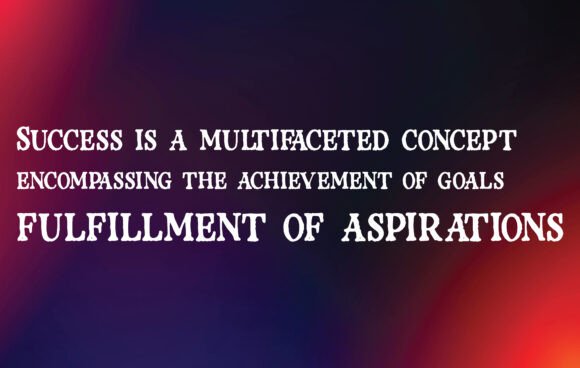
Europa Font: Elevate Your Creative Ideas with this Stunning Typeface
The world of typography is vast and diverse, with numerous fonts available to cater to various design needs. Among these, the Europa font stands out for its elegance, versatility, and captivating charm. In this article, we will delve into the features, benefits, and applications of the Europa font, exploring how it can elevate your creative ideas to new heights.
What is Europa Font?
Europa is a lovely and beautiful font, meticulously crafted to inspire creativity and bring a touch of sophistication to any design project. Its unique style and characteristics make it an excellent choice for designers, artists, and anyone looking to create visually stunning content.
Key Features of Europa Font
- Unique Style: Europa font boasts a distinctive style that sets it apart from other typefaces. Its elegant lines, precise curves, and balanced proportions make it a joy to work with.
- Versatility: This font is incredibly versatile, suitable for a wide range of design applications, from logos and branding to quotes and creative writing.
- Legibility: Europa font is designed with legibility in mind, ensuring that your text remains clear and easy to read, even at smaller font sizes.
- Customizability: The font’s flexibility allows for effortless customization, enabling you to tailor it to your specific design needs.
Applications of Europa Font
Europa font is an excellent choice for various design projects, including:
- Logo Design: Create eye-catching logos that leave a lasting impression with Europa font’s unique style and elegance.
- Branding: Establish a strong brand identity with this font, perfect for crafting memorable brand names, taglines, and marketing materials.
- Quotes and Typography: Add a touch of sophistication to your quotes, posters, and typographic designs with Europa font’s beautiful and legible style.
- Digital and Print Media: Use Europa font in digital and print media, such as brochures, flyers, magazines, and website content, to create a cohesive and professional visual identity.
Benefits of Using Europa Font
By incorporating Europa font into your design projects, you can:
- Enhance Visual Appeal: Elevate your designs with Europa font’s captivating style, making them more engaging and attention-grabbing.
- Establish Brand Identity: Create a consistent visual brand identity that resonates with your audience and sets you apart from competitors.
- Improve Readability: Ensure that your text is clear, legible, and easy to read, making it more accessible to your audience.
- Streamline Design Process: With Europa font’s versatility and customizability, you can save time and effort in your design process.
Tips and Tricks for Using Europa Font
To get the most out of Europa font, consider the following tips:
- Experiment with Font Sizes: Play with different font sizes to create visual hierarchy and emphasize key elements in your design.
- Pair with Other Fonts: Combine Europa font with complementary fonts to create a unique and harmonious typographic combination.
- Adjust Line Spacing: Optimize line spacing to improve readability and create a more balanced design.
- Use Font Variations: Take advantage of Europa font’s variations, such as bold, italic, and oblique, to add visual interest and depth to your design.
Europa font is a stunning and versatile typeface that has the potential to elevate your creative ideas to new heights. With its unique style, legibility, and customizability, it’s an excellent choice for various design applications, from logos and branding to quotes and creative writing. By incorporating Europa font into your design projects, you can enhance visual appeal, establish a strong brand identity, and improve readability. So why wait? Discover the power of Europa font and unlock your creative potential today!